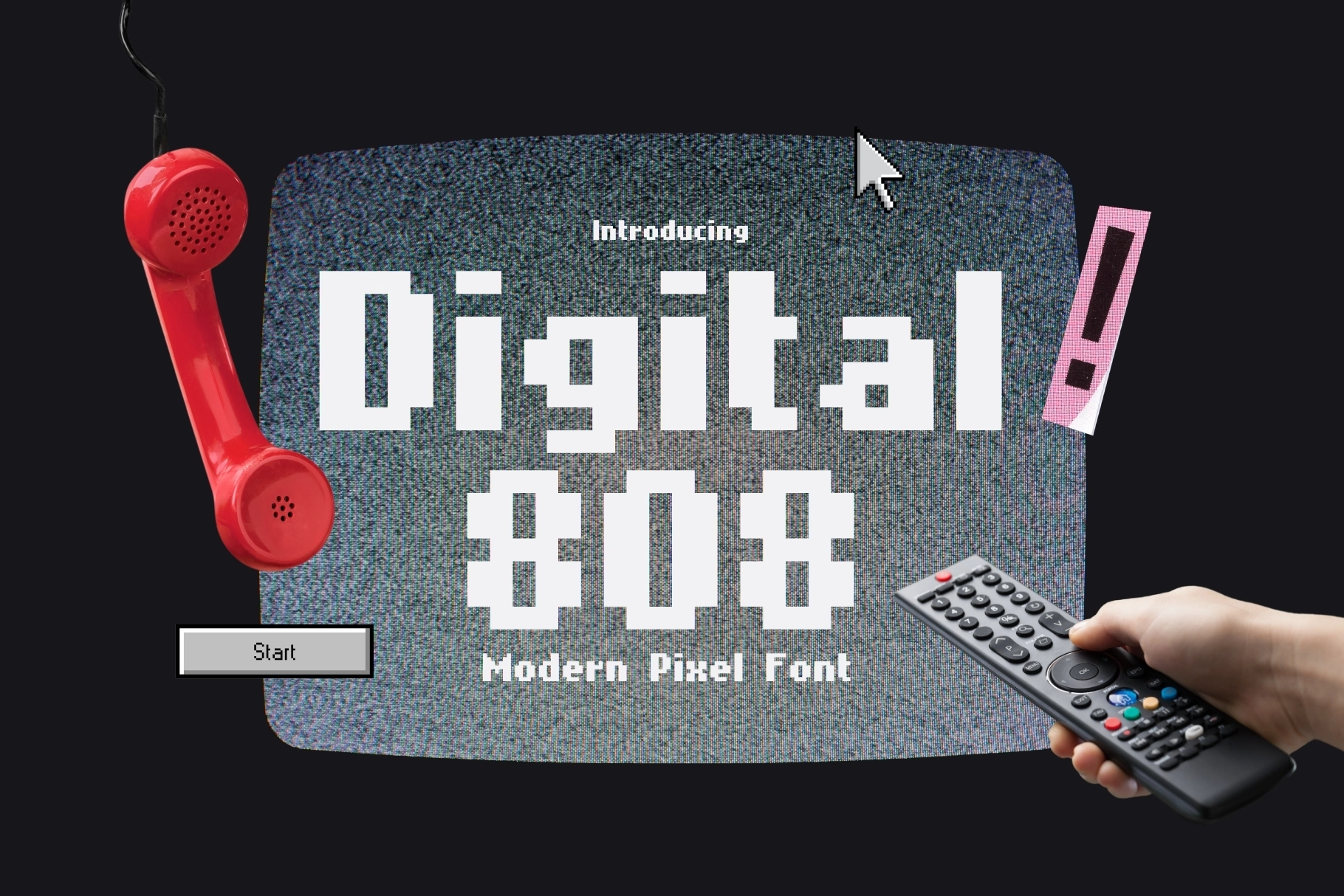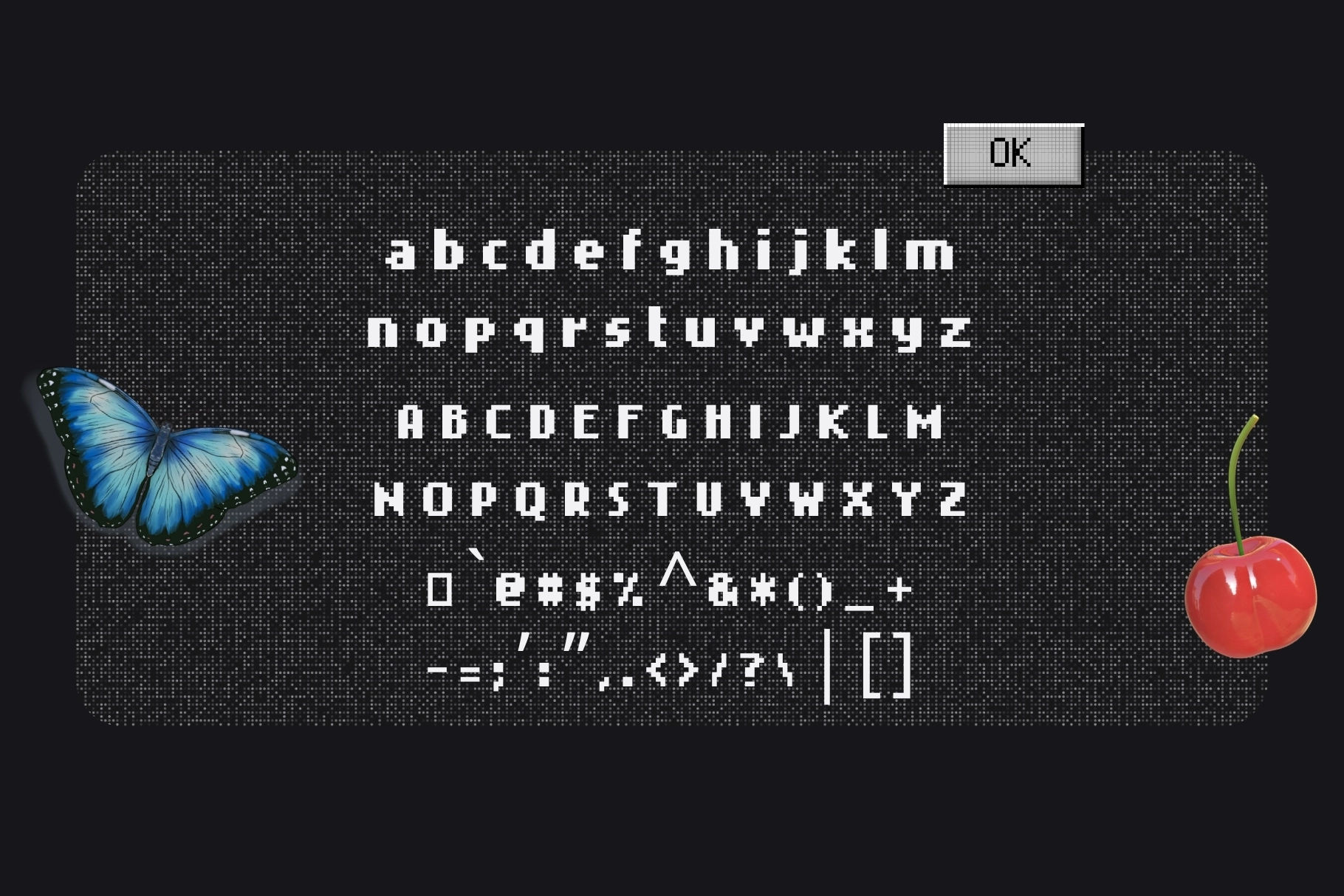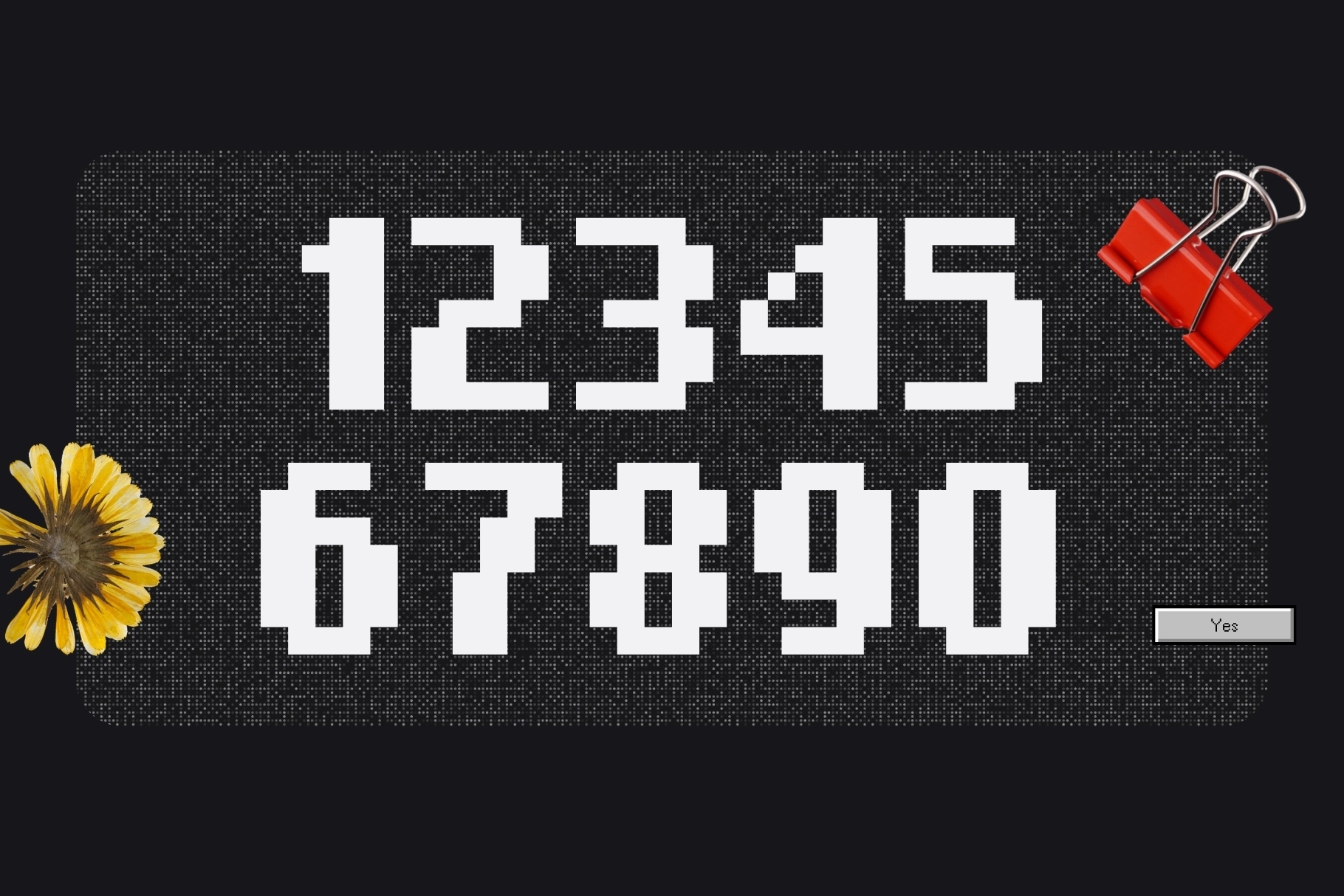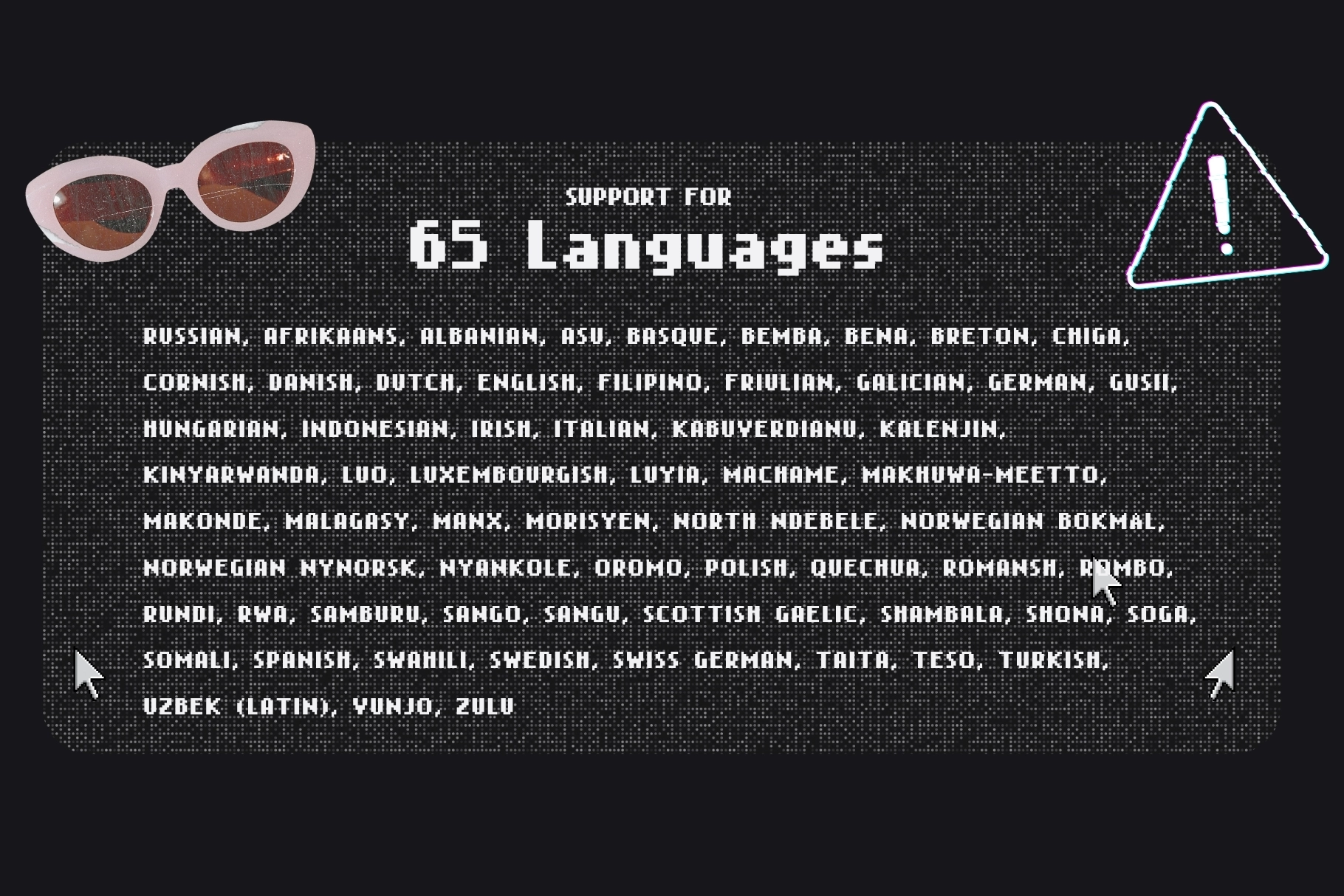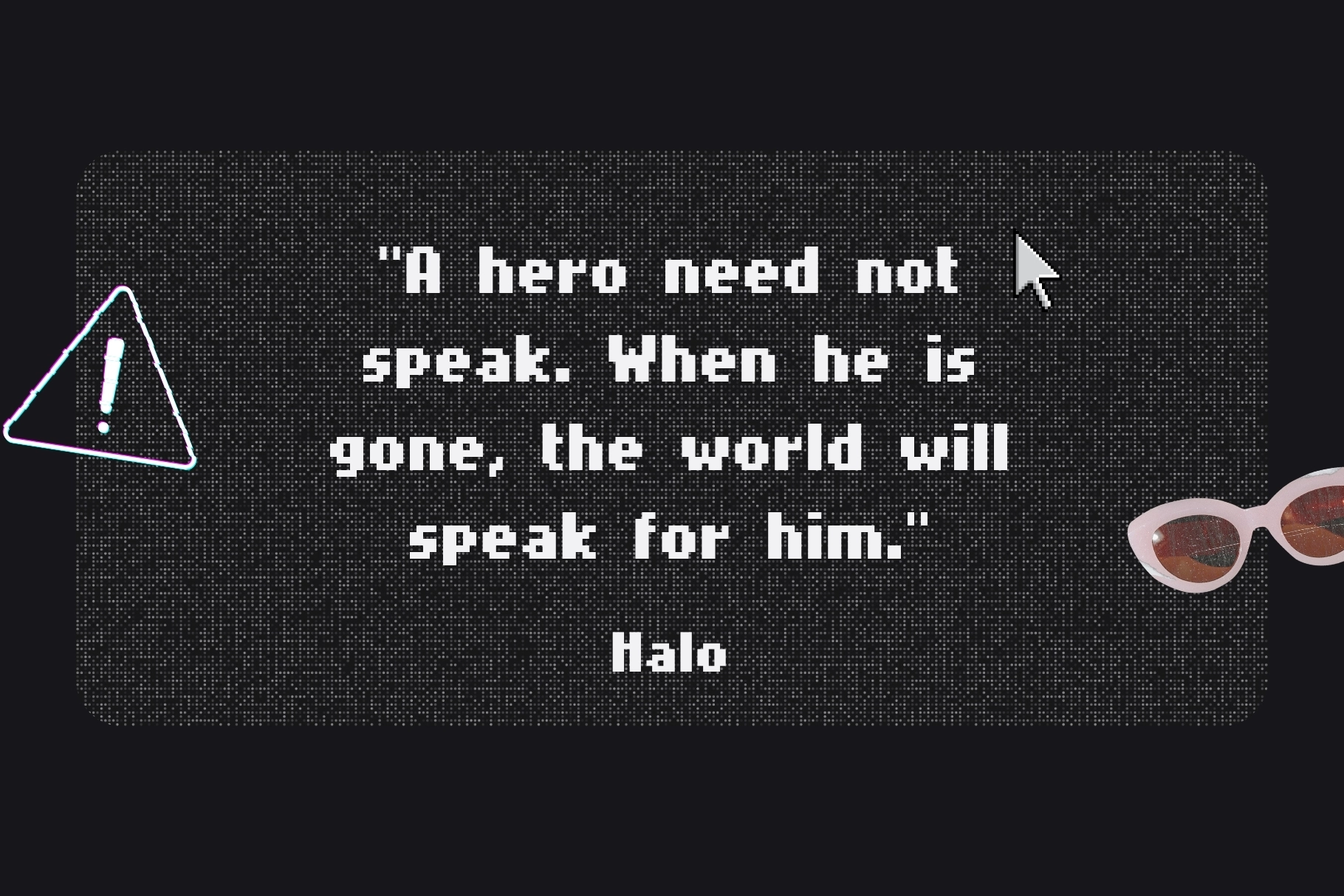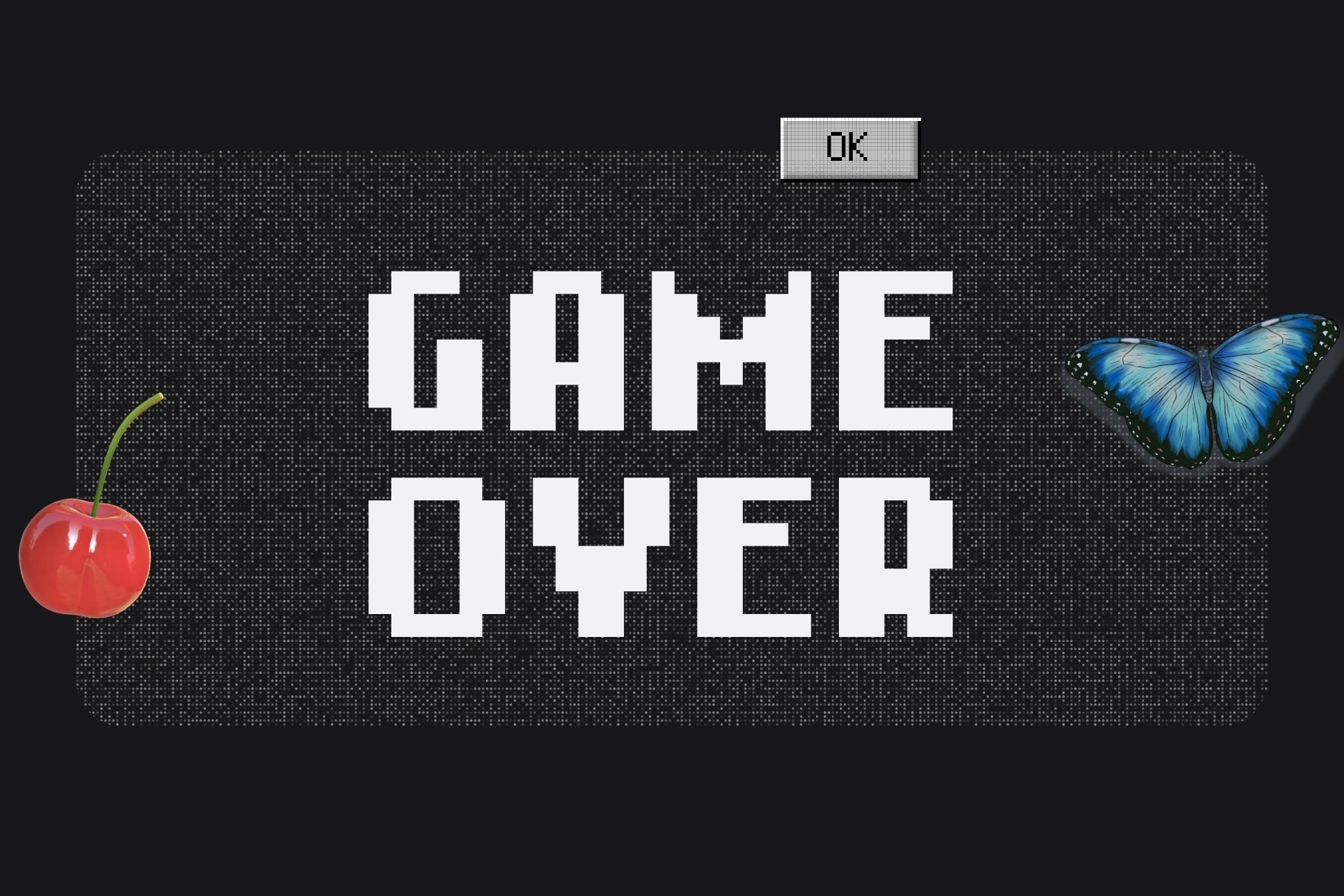
Digital 808 - 8Bit Pixel Font
Digital 808, 8Bit Pixel Font reflects the visual language of 1980s arcade screens and early home computer interfaces, shaped by strict pixel grids and the bold clarity of classic bitmap typography. It works well for game design, UI systems, posters, logos, apparel graphics, and tech branding, especially in projects that draw on retro gaming culture or nostalgic digital aesthetics.
• Uppercase & lowercase letters
• Numbers & punctuation
• Pixel-perfect geometric structure